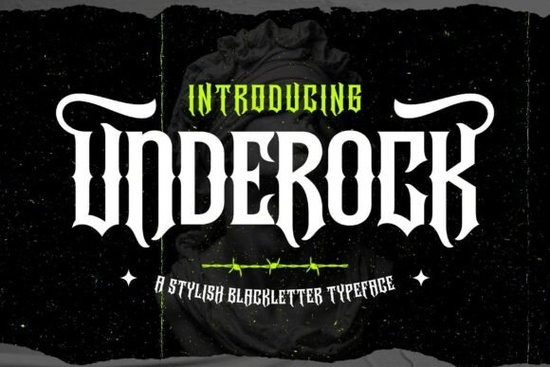
Underock Font is a striking typeface that brings a bold and rebellious energy to any design project. Designed for those who want to make a strong visual statement, this blackletter font blends the traditional elements of Gothic lettering with the raw intensity of modern hardcore typography. Whether you're working on logos, posters, or streetwear, Underock offers a unique blend of style and versatility that stands out.
The font draws inspiration from underground culture and historical Gothic traditions, resulting in a design that feels both timeless and contemporary. Its sharp letterforms and dramatic curves create a powerful presence, making it ideal for projects that require a sense of urgency or edginess. The wide range of stylistic alternates and distinctive ligatures allows for creative flexibility, letting you customize your designs without compromising on impact.
If you're looking for a font that can add depth and character to your work, Underock Font is an excellent choice. It’s particularly useful for designers working on branding, packaging, or editorial layouts where a strong typographic voice is essential. The font’s dark and expressive nature makes it perfect for creating visuals that resonate with audiences who appreciate bold and unconventional styles.
What Makes Underock Font Stand Out?
Underock Font isn’t just another blackletter typeface it’s designed with intention and purpose. Unlike many fonts that stick to a single style, Underock offers multiple variations that let you experiment with different looks. This makes it easier to find the right tone for your project, whether you’re going for something subtle or something that demands attention.
One of the key features of Underock is its ability to adapt to different design needs. The font includes a variety of ligatures and alternates, which means you can create unique compositions without repeating the same look. This is especially helpful for designers who want to maintain consistency across multiple pieces while still keeping each one visually distinct.
For those new to blackletter fonts, Underock provides a good starting point. It balances complexity with readability, ensuring that even the most intricate details don’t compromise legibility. This makes it accessible for both seasoned designers and creative hobbyists looking to explore new styles.
Best Uses for Underock Font
Underock Font is highly versatile and works well in a range of applications. For logos, it adds a sense of strength and authority that can help establish a brand’s identity. In posters, it can draw attention and set the tone for the message being conveyed. Streetwear and apparel designers often use it to create eye-catching text that reflects a rebellious or alternative aesthetic.
When it comes to packaging and branding, Underock’s boldness helps products stand out on shelves. Its dramatic curves and sharp lines make it ideal for labels, tags, and other design elements that need to grab attention. For editorial projects, such as magazines or zines, it can add a unique visual flair that complements the content.
Small businesses and print-on-demand sellers will also find value in using Underock. It’s a great way to differentiate products and create a memorable brand image. Whether you're designing t-shirts, mugs, or other merchandise, this font can help elevate your offerings with a distinctive look.
How to Use Underock Font Effectively
To get the most out of Underock Font, consider the context in which it will be used. Since it’s a display typeface, it works best when used sparingly. Overusing it can make designs feel cluttered or hard to read. Instead, use it for headings, titles, or key visual elements where it can have the most impact.
Experimenting with different sizes and weights can also help you achieve the desired effect. Larger sizes emphasize the font’s boldness, while smaller sizes may be better suited for more subtle applications. Pairing it with simpler fonts can also help balance the overall design and prevent it from becoming overwhelming.
Finally, don’t hesitate to explore the stylistic alternates and ligatures included in the font. These features allow for greater customization and can help you create a look that’s truly your own. Whether you're working on a personal project or a client's design, these options give you the freedom to express your creativity.
If you're interested in exploring similar fonts, Underock Font is a great place to start. It’s available on Creative Fabrica, where you can find a wide selection of high-quality typefaces tailored to different design needs.
Before finalizing your design, take a moment to test Underock in different contexts. See how it looks with various colors, backgrounds, and layouts. This will help ensure that it meets your creative goals and delivers the right visual impact. With its combination of style, flexibility, and strength, Underock Font is a valuable addition to any designer’s toolkit.
Checklist for using Underock Font:
- Test the font in different sizes and weights
- Use it for headings or key visual elements
- Pair it with simpler fonts for balance
- Explore stylistic alternates and ligatures
- Ensure readability in your final design